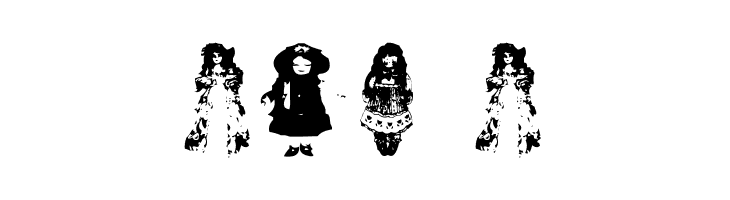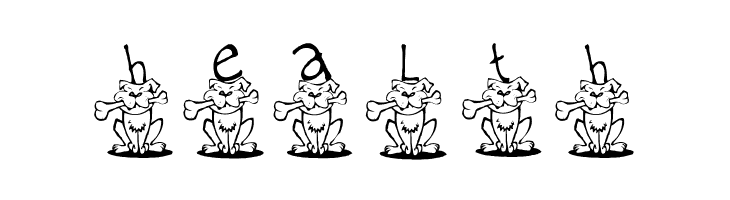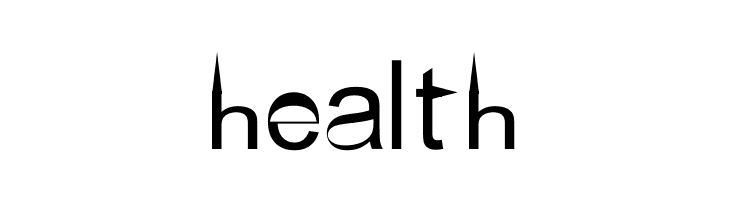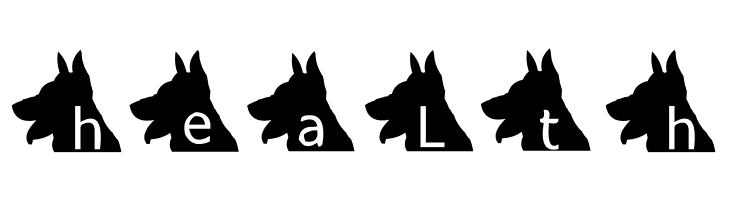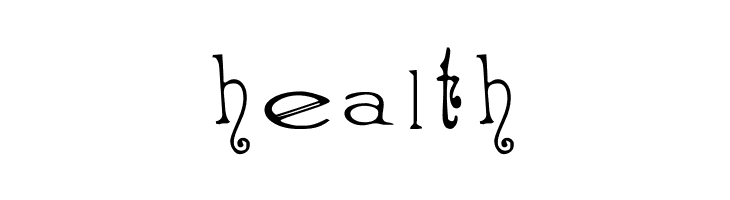
A playful, hand-drawn font with varied thickness and whimsical character.
A bold, modern sans-serif font with playful distortions and unique character shapes.
A collection of owl-themed decorative glyphs.
A playful font with letters inside dog head silhouettes, perfect for pet-themed designs.
A whimsical font with cartoon dogs accompanying each character, perfect for playful designs.
A playful, handwritten font with whimsical and irregular strokes.
A whimsical, spooky-themed font with bat motifs and decorative elements.
A modern, playful font with bold characters and high contrast.
A playful, hand-drawn font with whimsical, cartoonish elements.
Whimsical display font using doll silhouettes as characters.